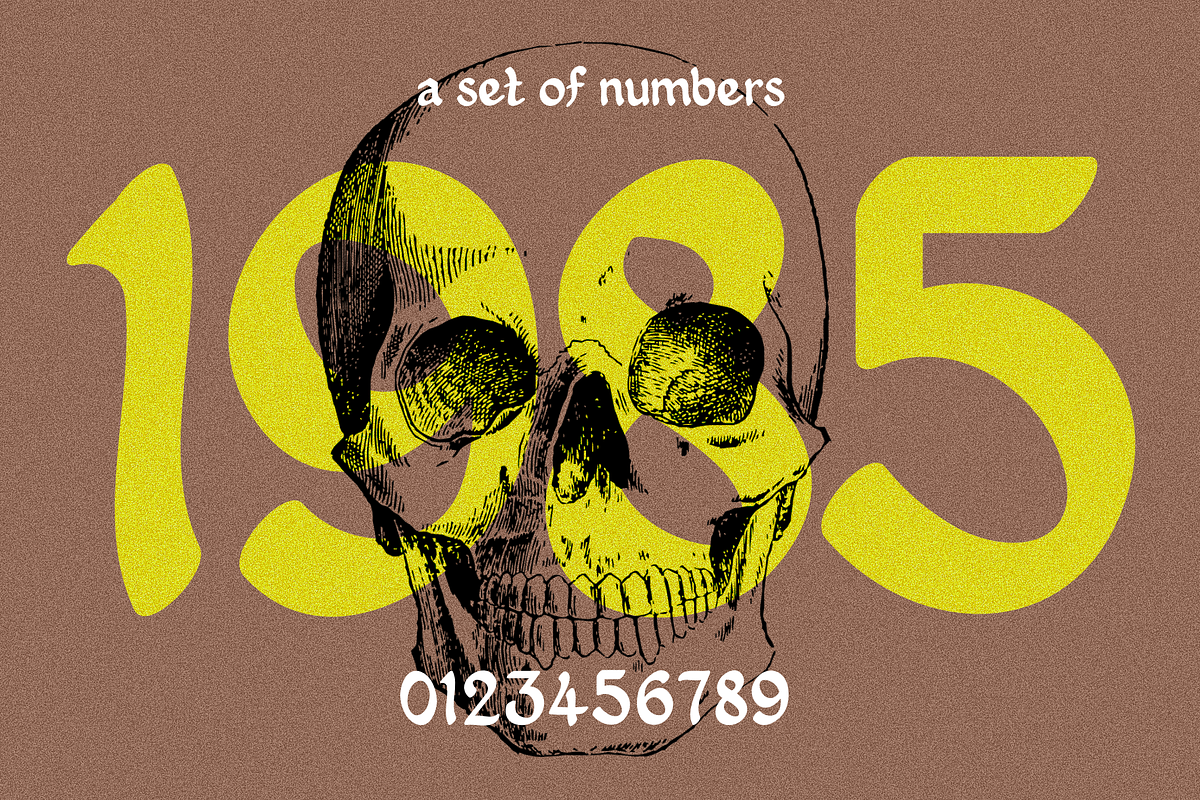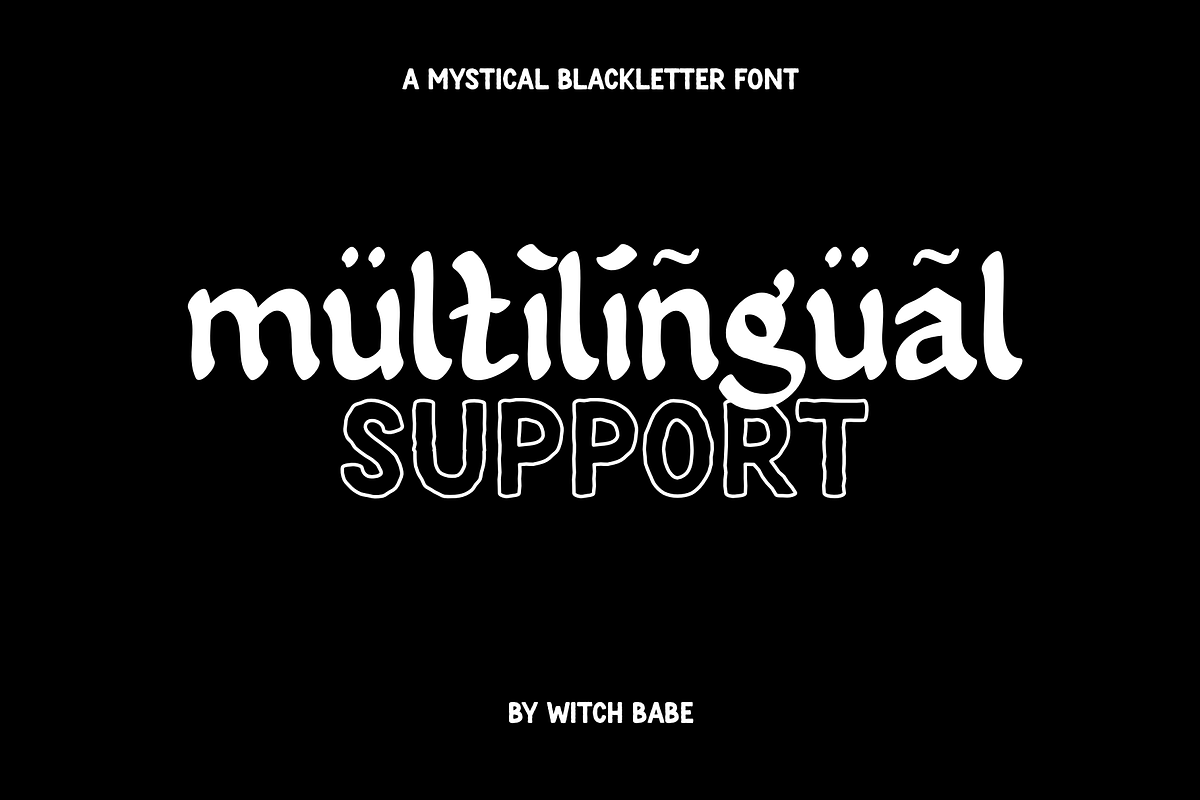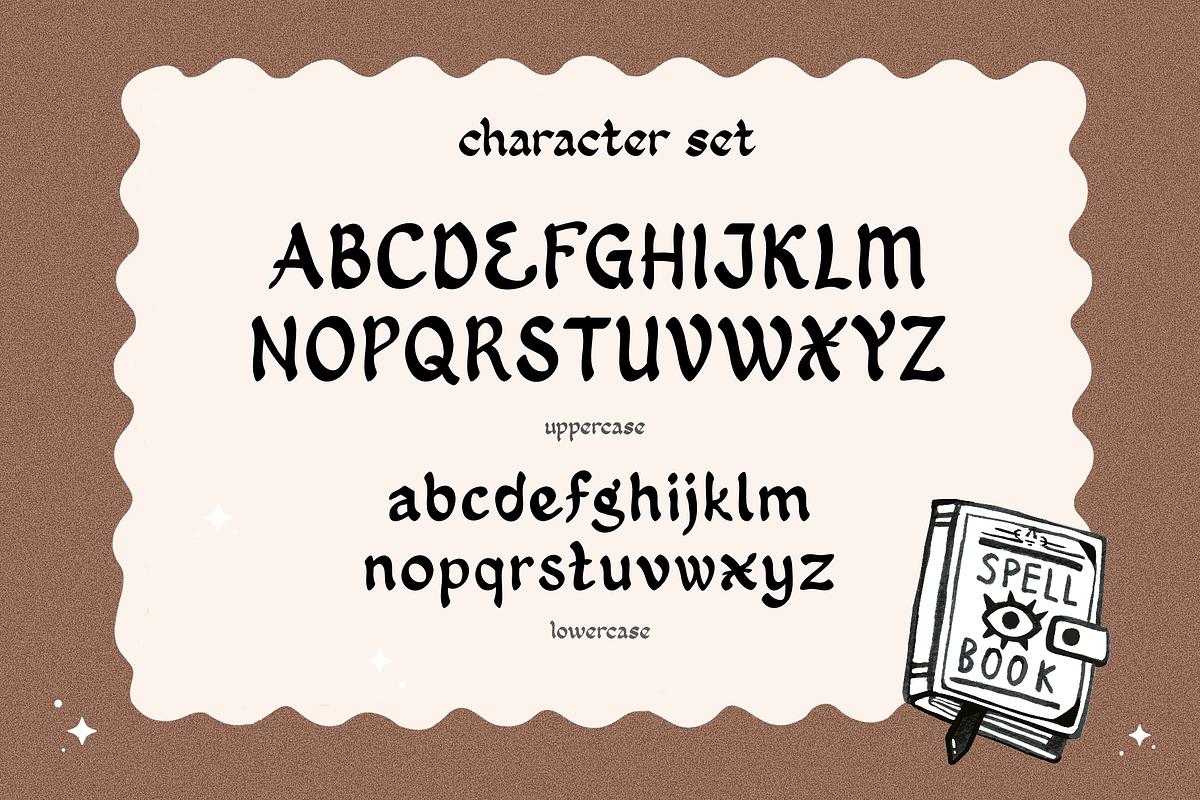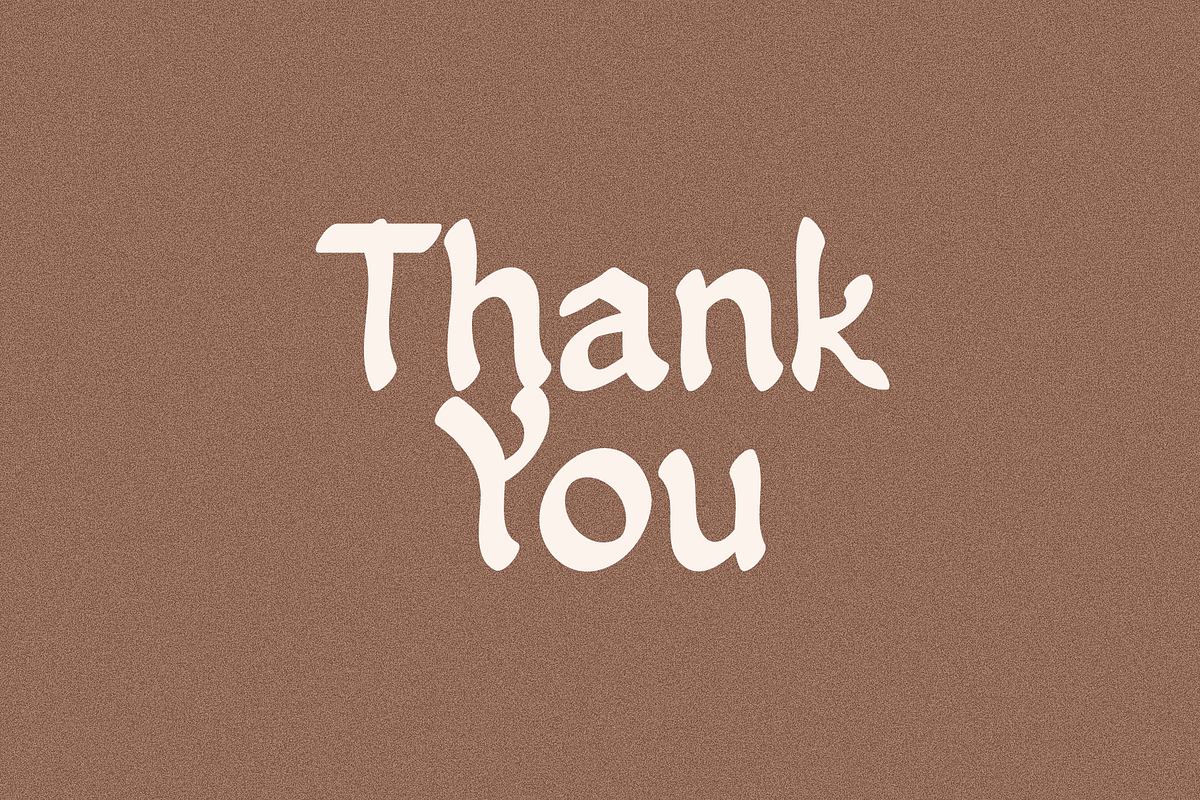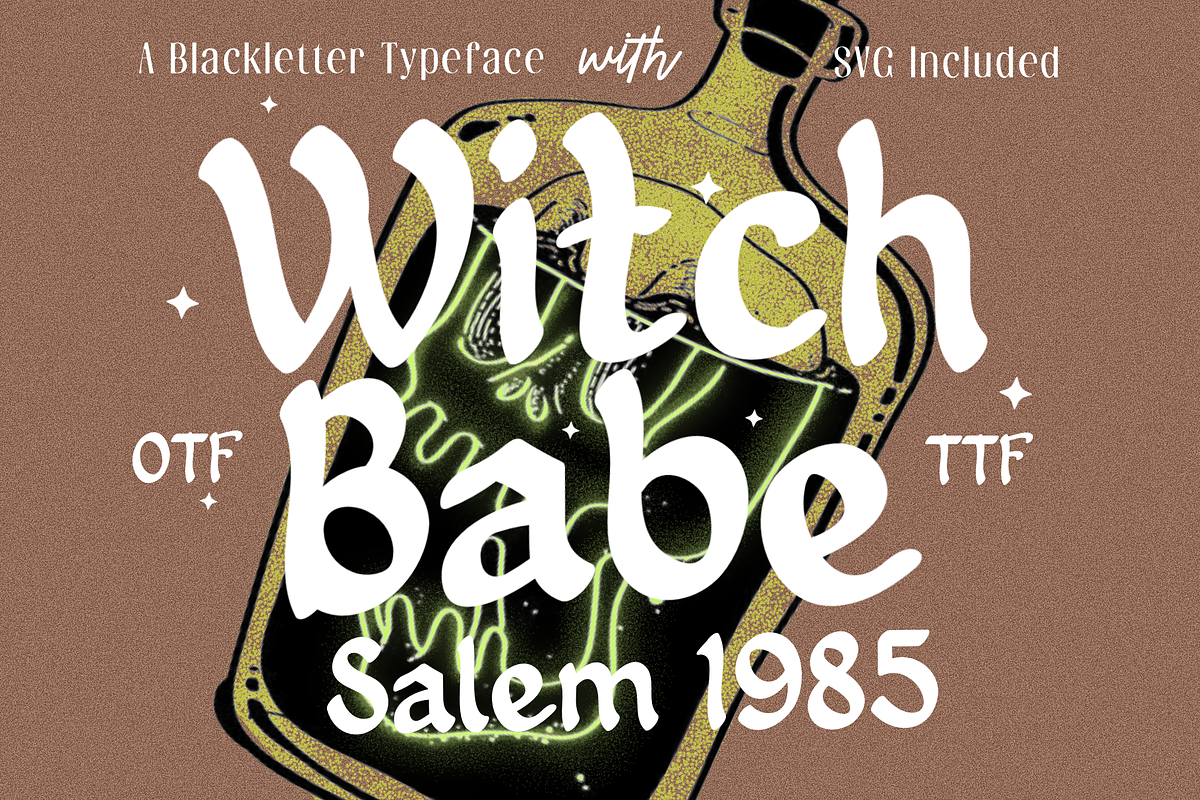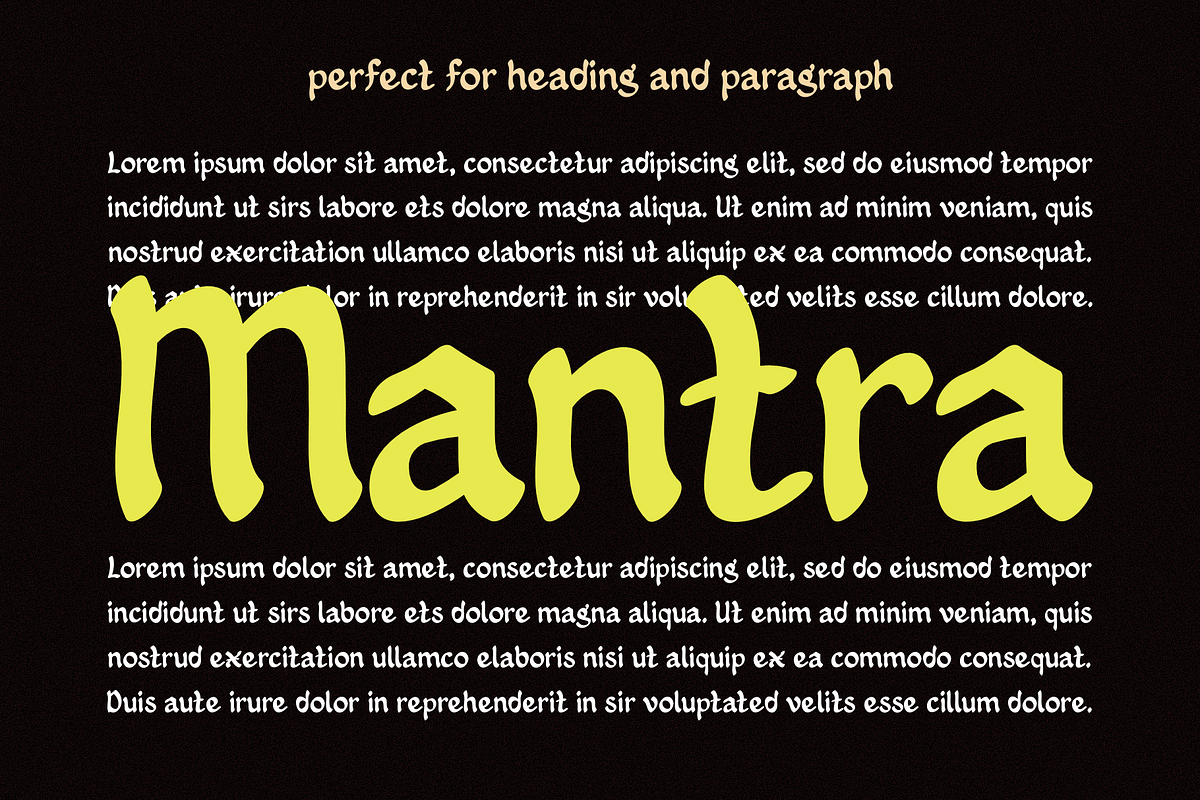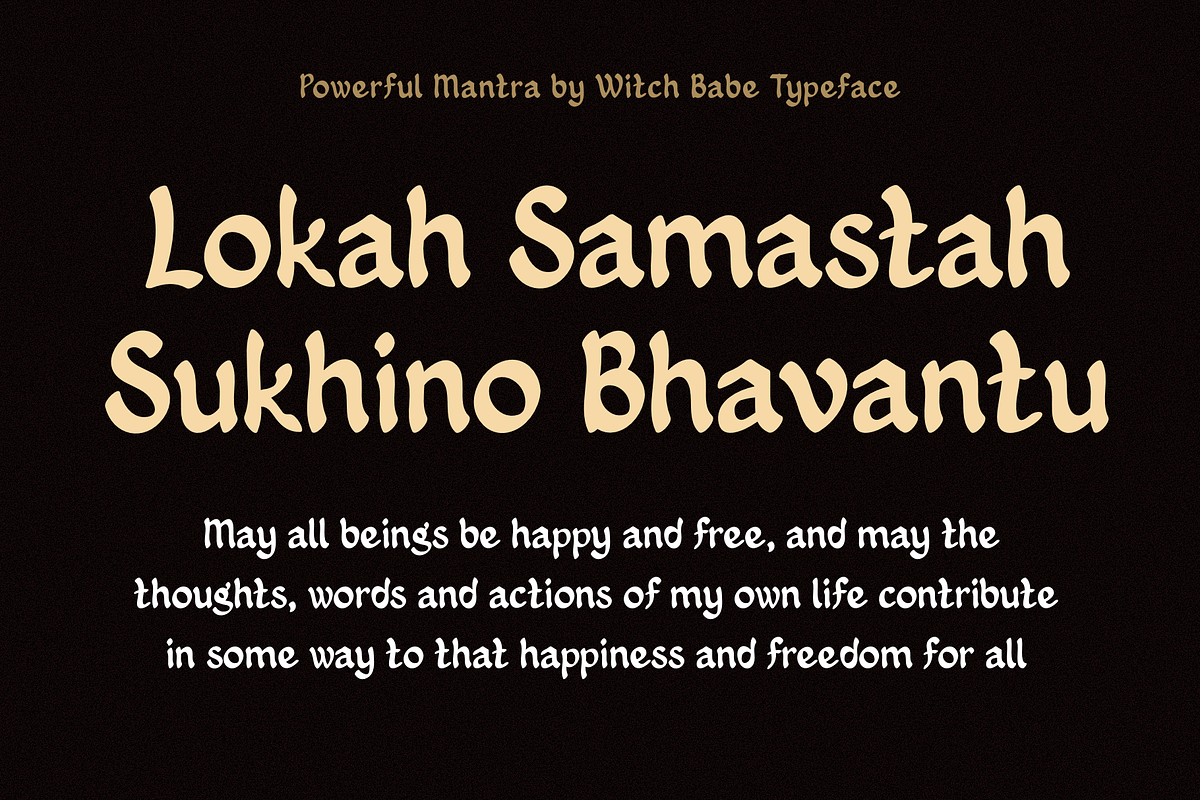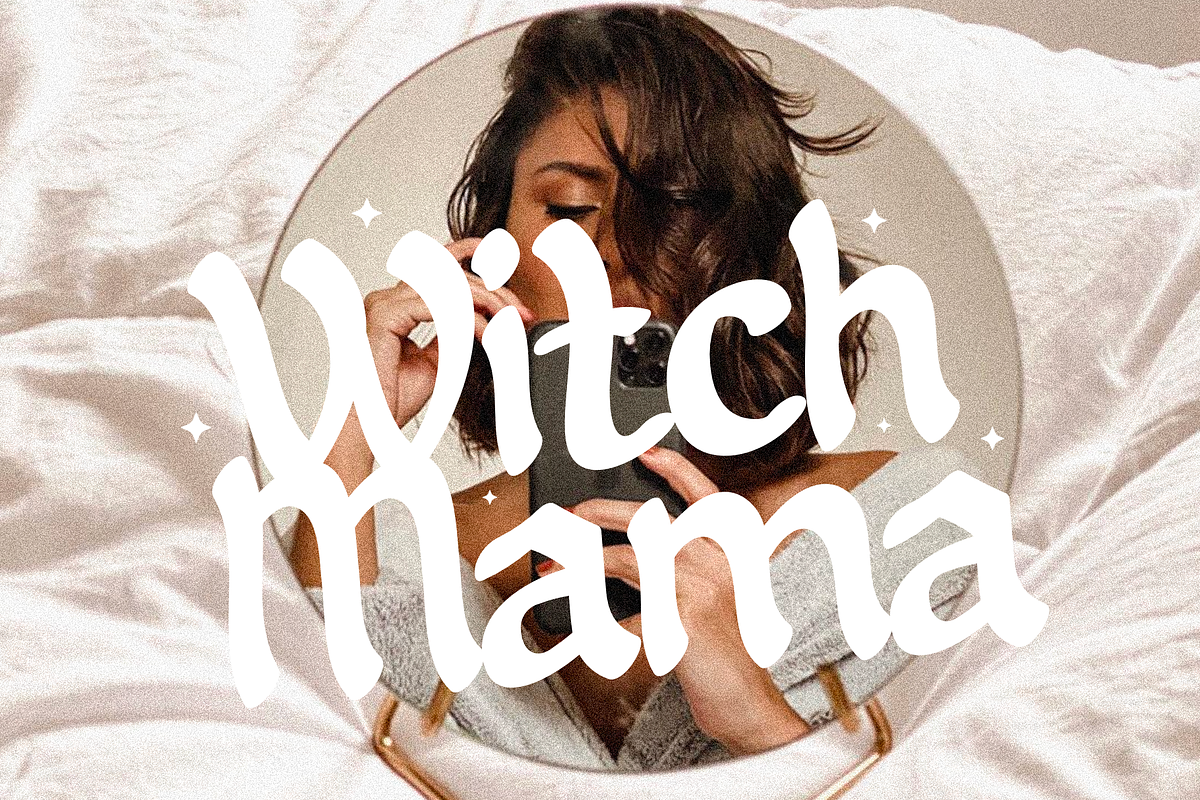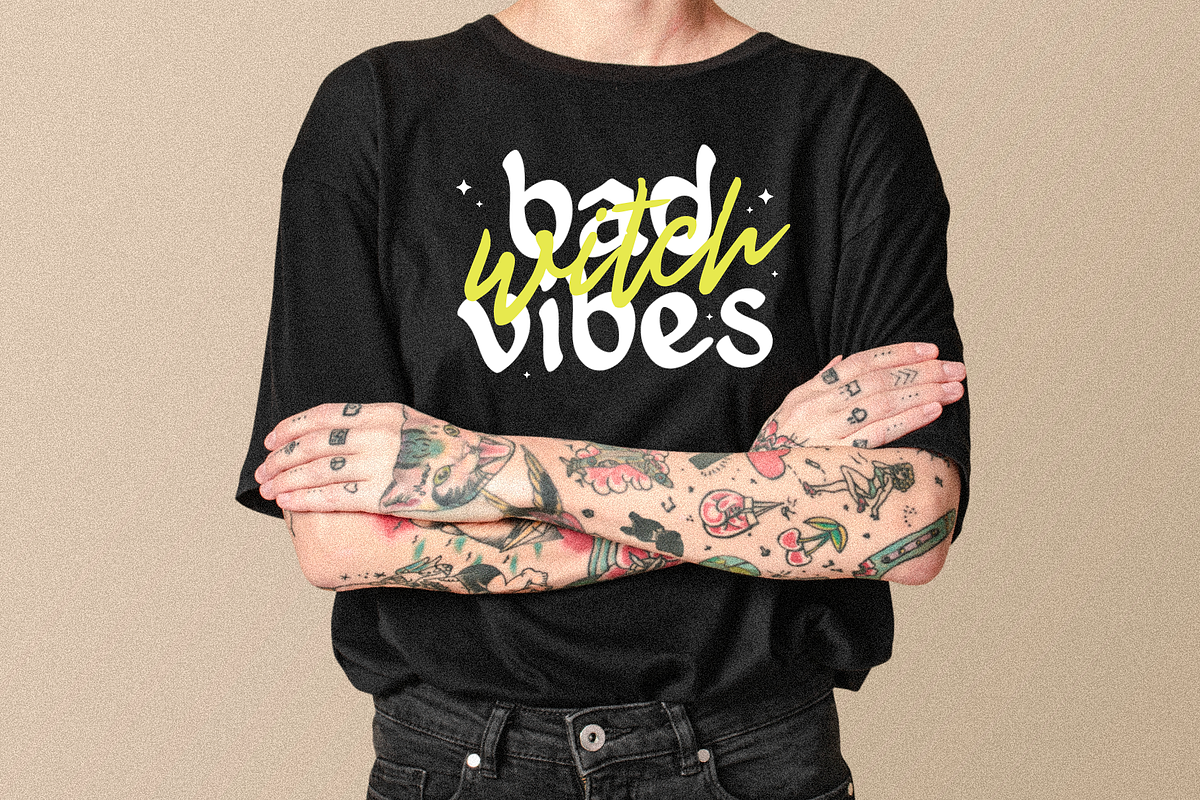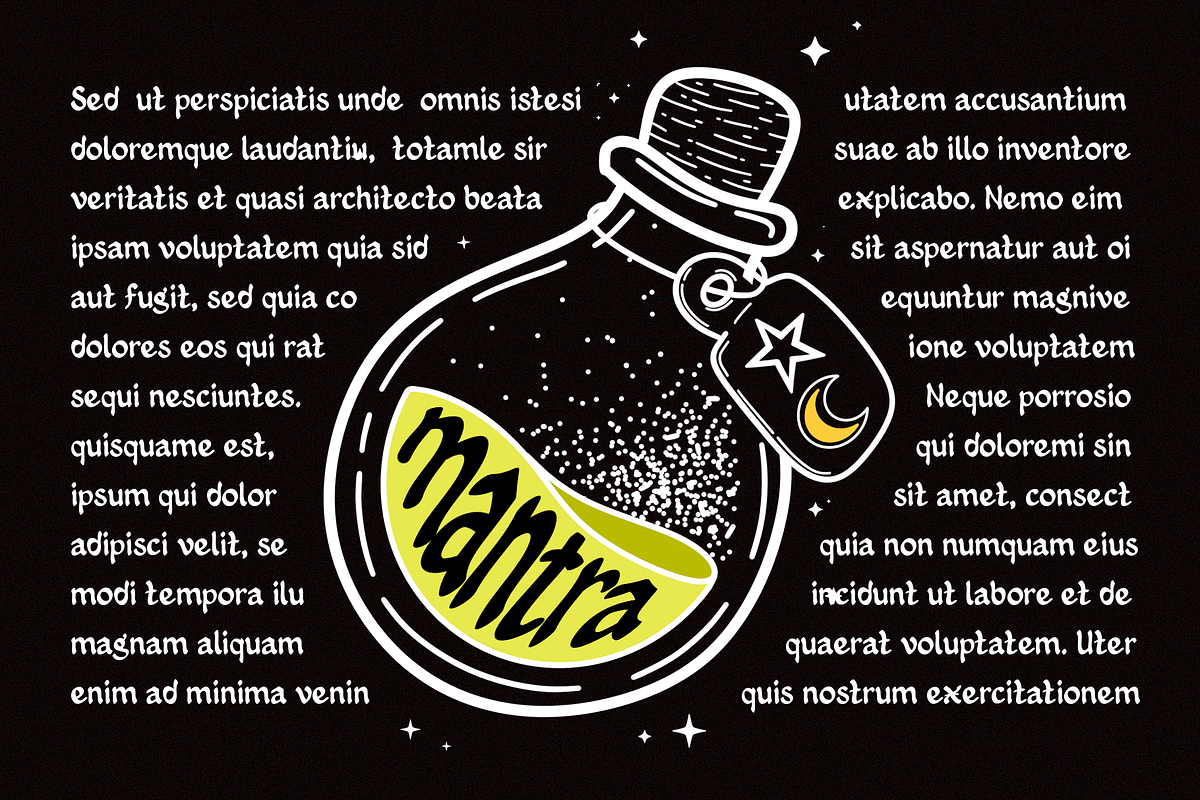
Witch Babe - Sans Serif Blackletter
Witch Babe is a unique and intriguing sans serif Blackletter font that combines modern design with traditional typography. Its bold, blocky letters with a sleek, modern twist make it perfect for projects that demand a fusion of contemporary and classic styles. The font's sharp edges and clean lines give it a sense of sophistication and elegance, while the Blackletter style adds a touch of mystery and intrigue.
The name "Witch Babe" adds a playful and mischievous twist to an otherwise serious and imposing typeface, making it a versatile and fun option for various design projects. This font can be used in logos, branding, editorial design, packaging, and much more, making it a perfect choice for designers looking to add a unique and creative touch to their projects. If you're looking for a font that is both powerful and stylish, Witch Babe is definitely worth considering.